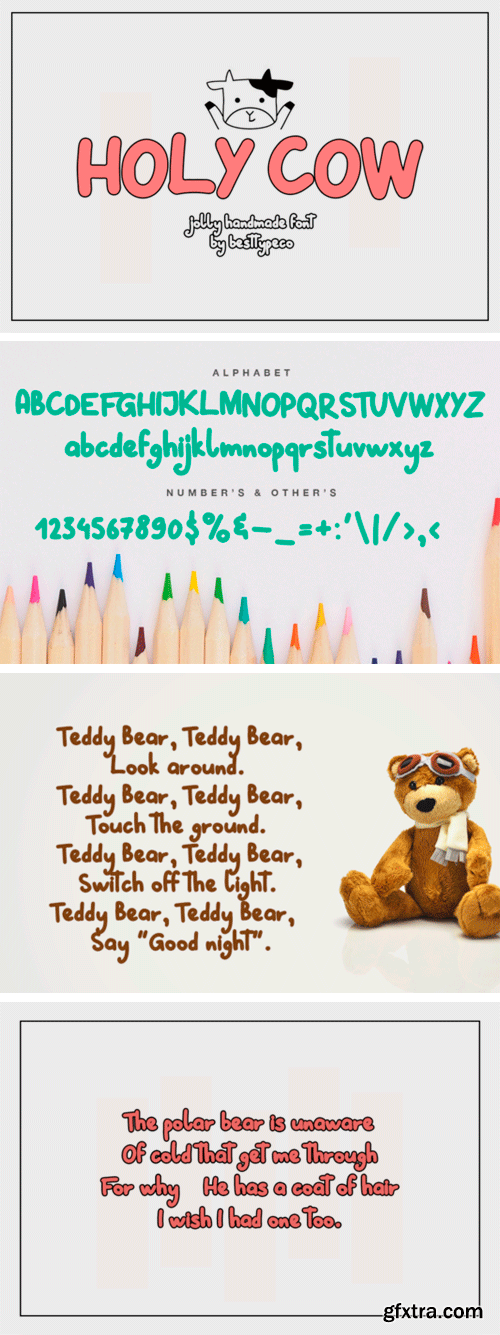
Holy Cow Font
Holy Cow is a new, fresh, handmade calligraphy font. Very suitable for greeting cards, branding materials, business cards, quotes, posters, and more!